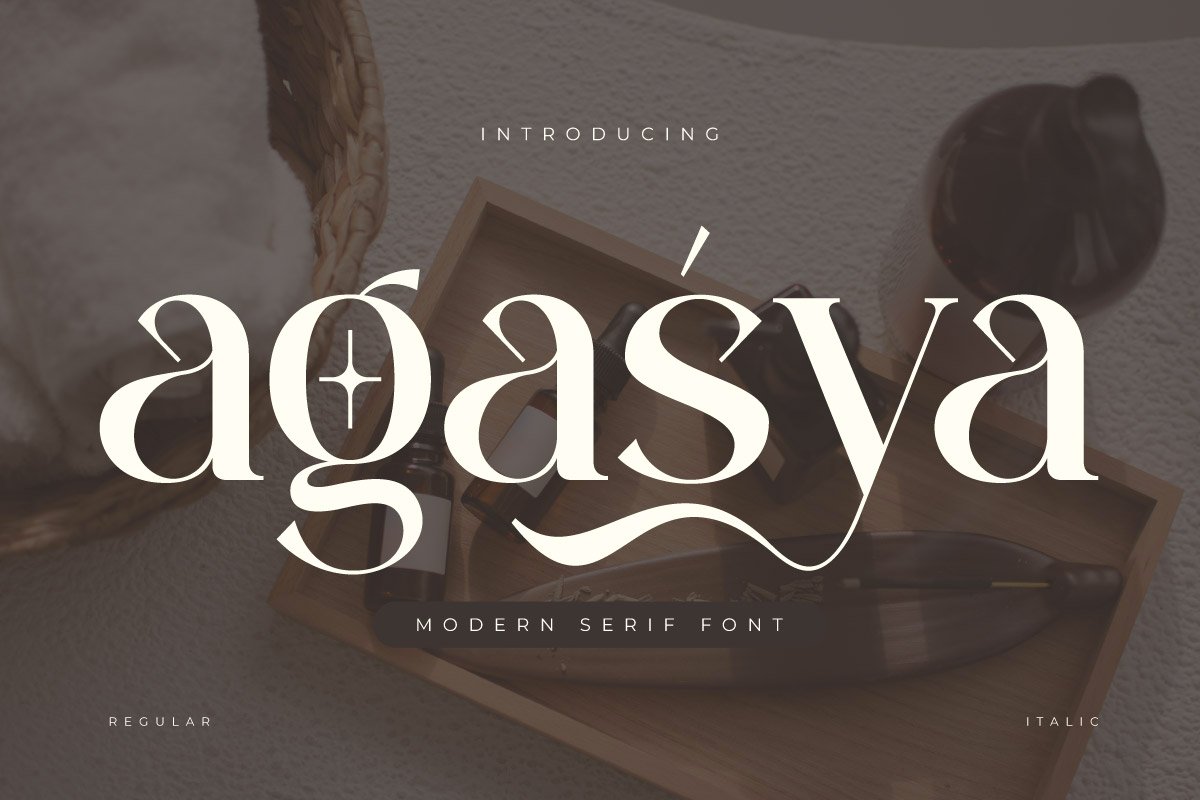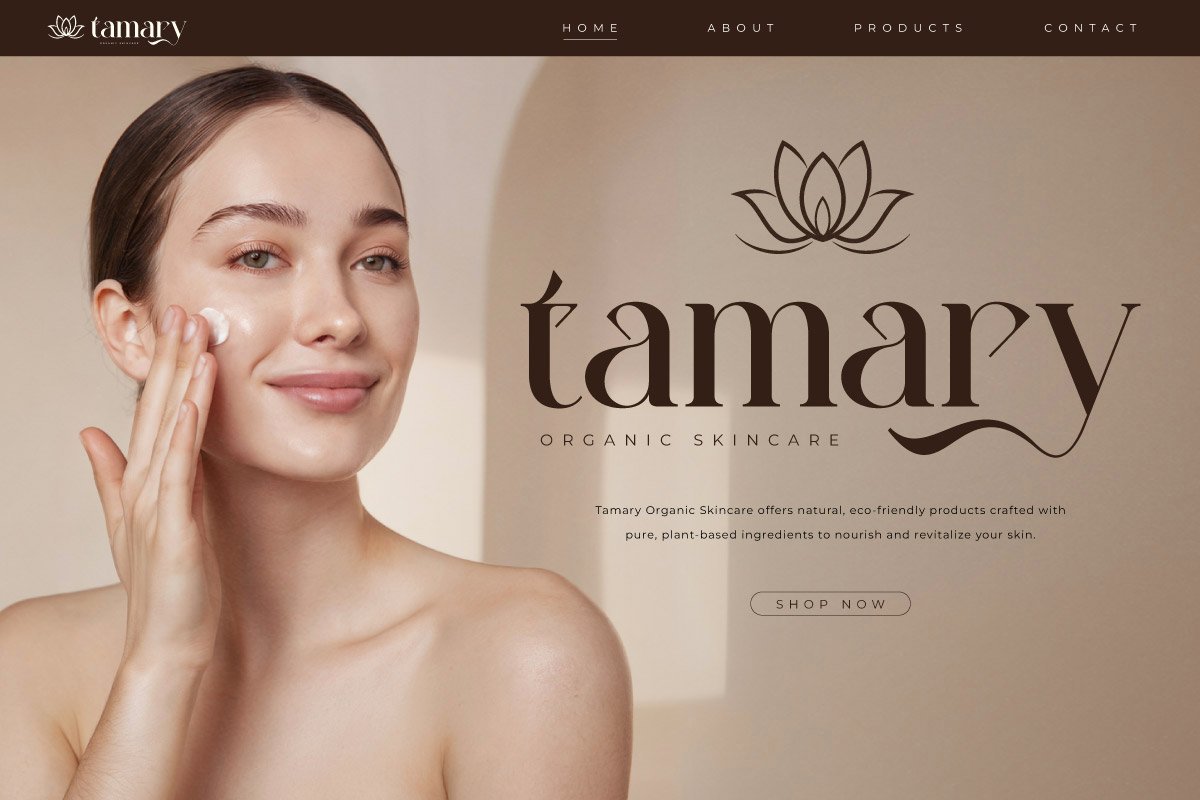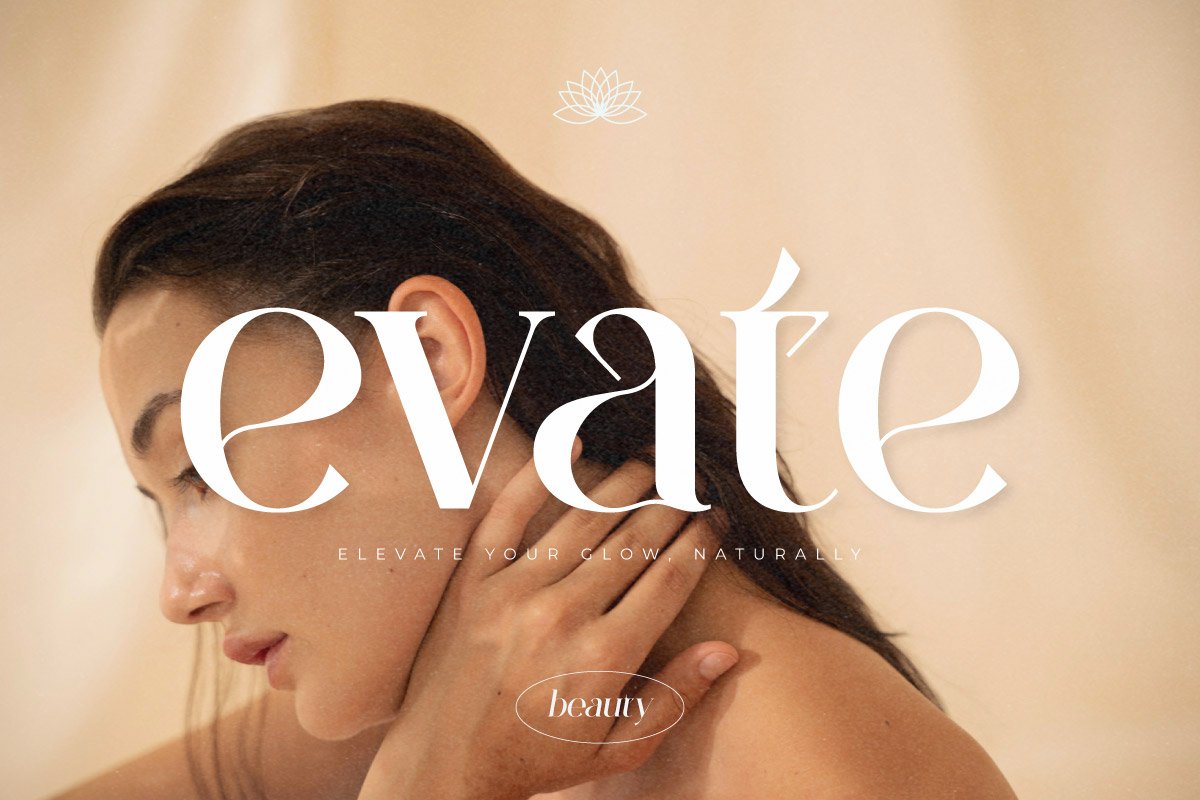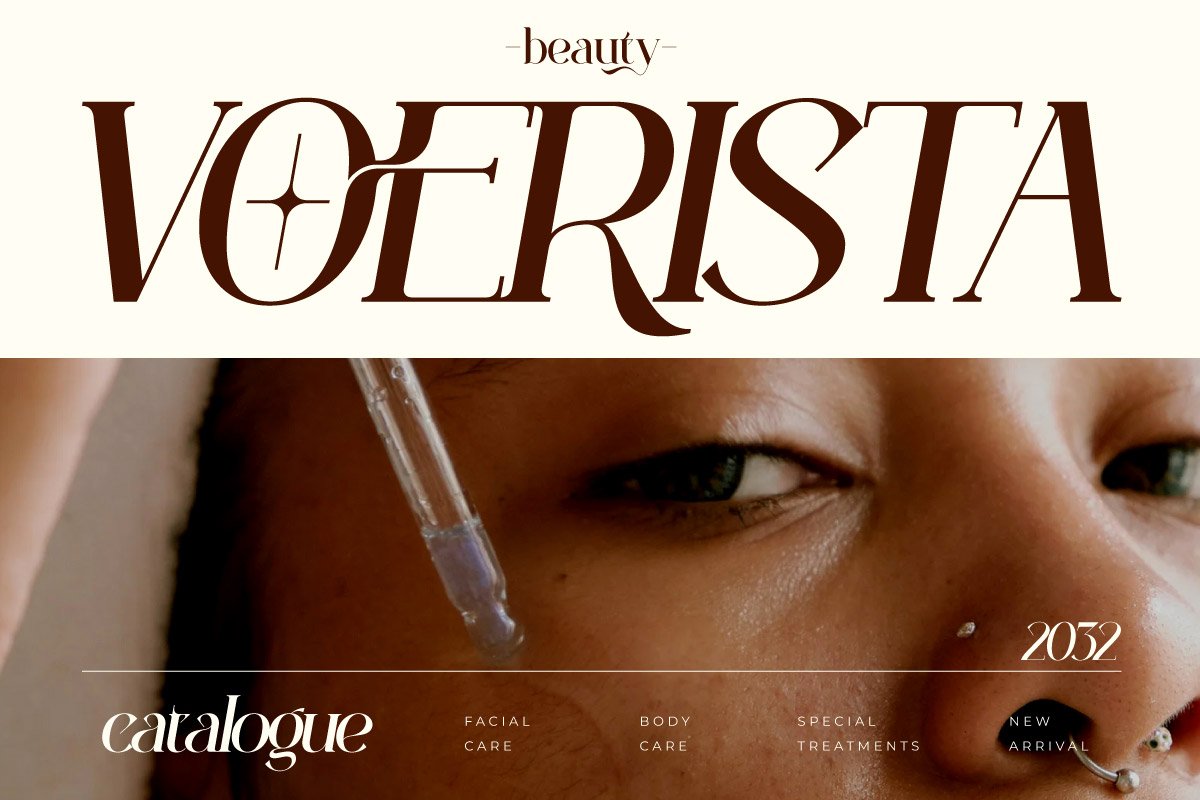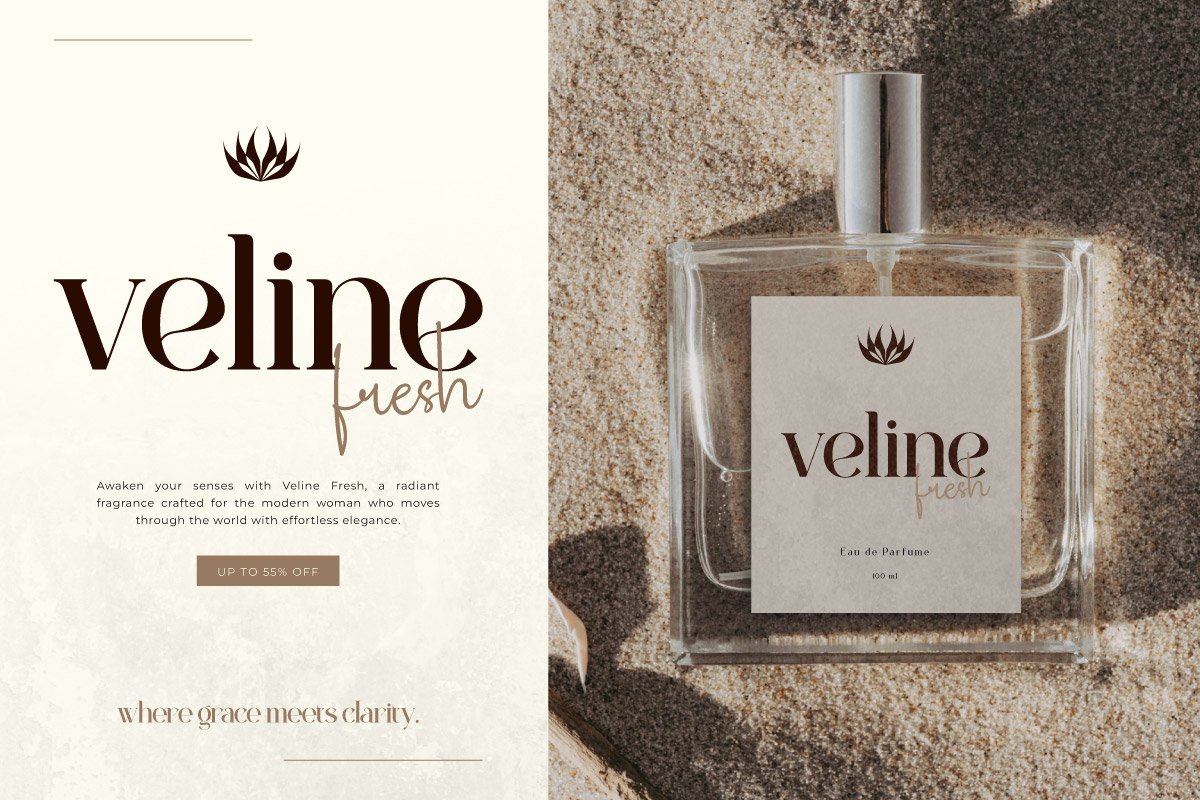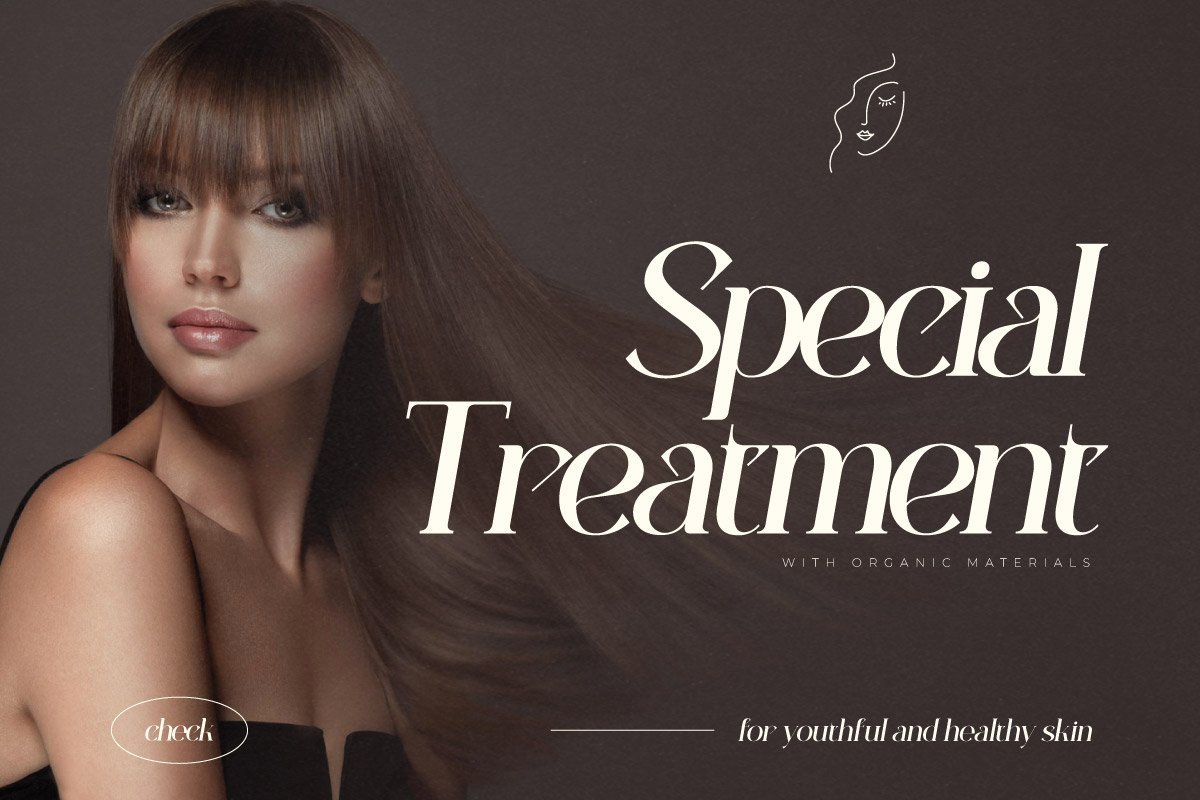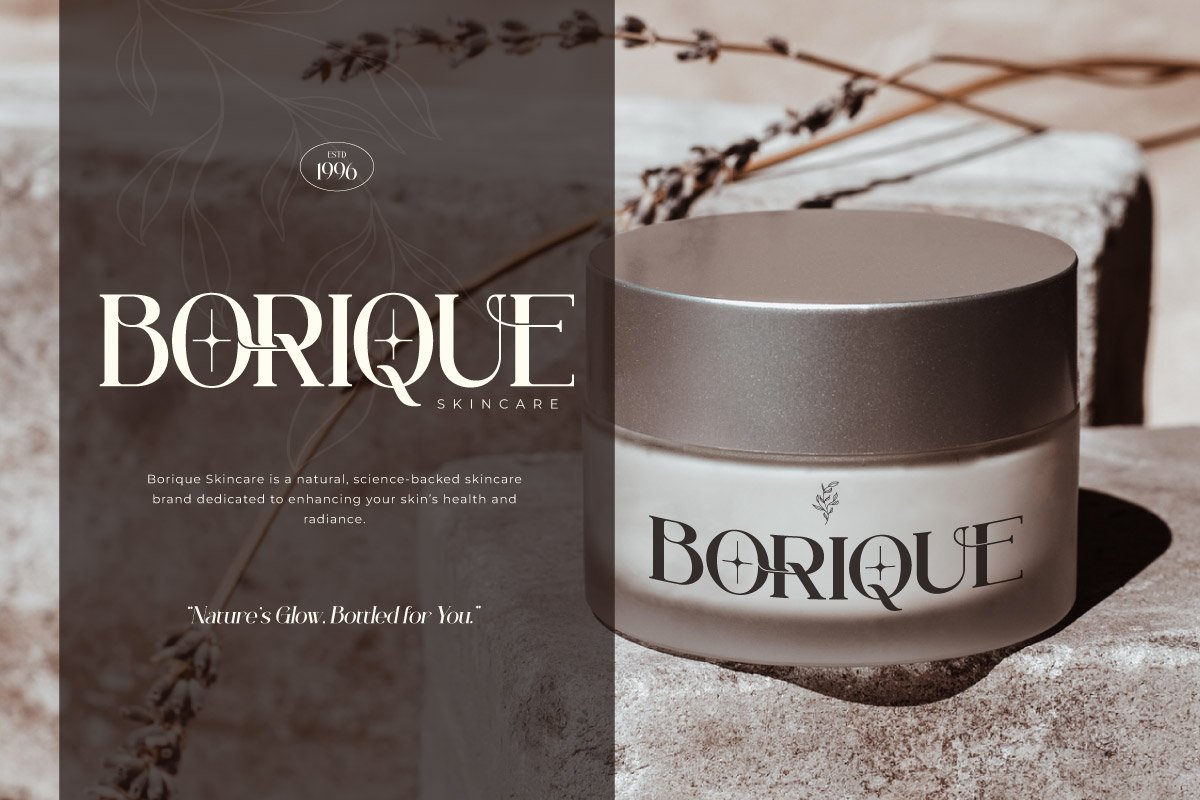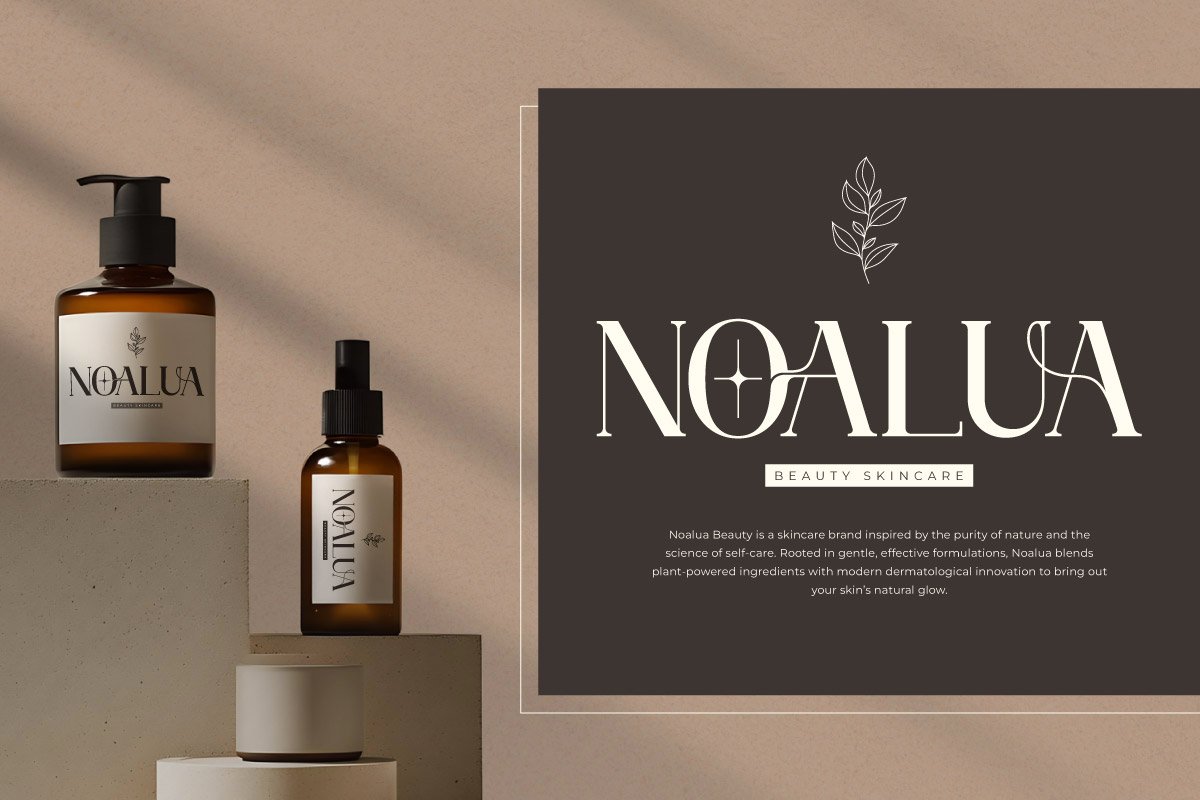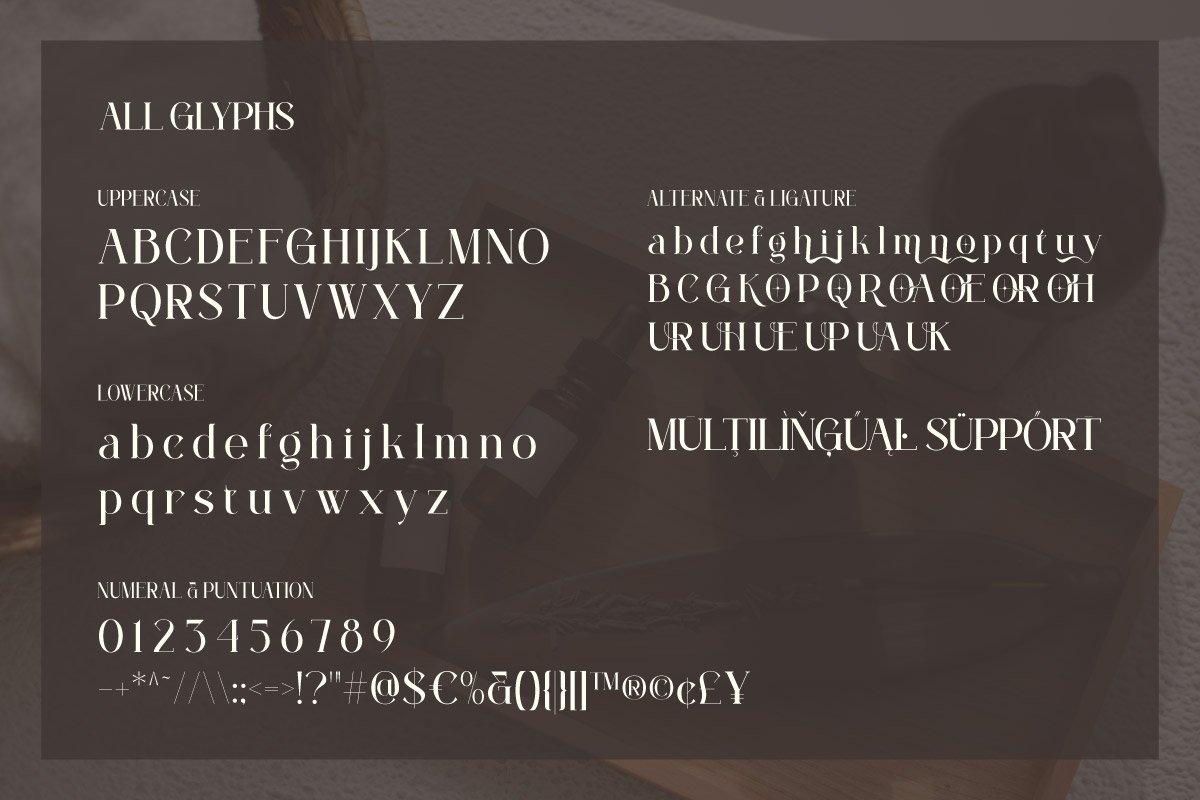
- Agasya – Modern Serif Font
Agasya is a refined modern serif font that blends elegance with versatility. Designed with clean serifs, balanced proportions, and contemporary flair, Agasya exudes a timeless charm that works beautifully across both print and digital media. With both Regular and Italic styles included, this font provides flexibility for creative expression—whether you’re crafting sophisticated branding, editorial layouts, fashion campaigns, or elegant invitations.
Each character in Agasya is carefully designed to convey professionalism and style, making it ideal for modern luxury brands, beauty and cosmetic packaging, and high-end typography. The italic variant adds a graceful, stylish touch that enhances emphasis and contrast in your compositions.
Agasya supports multilingual characters, punctuation, and is compatible with major design software, ensuring smooth workflow integration for designers of all levels. Whether you’re aiming for classic chic or modern minimalism, Agasya brings clarity, confidence, and class to your work.